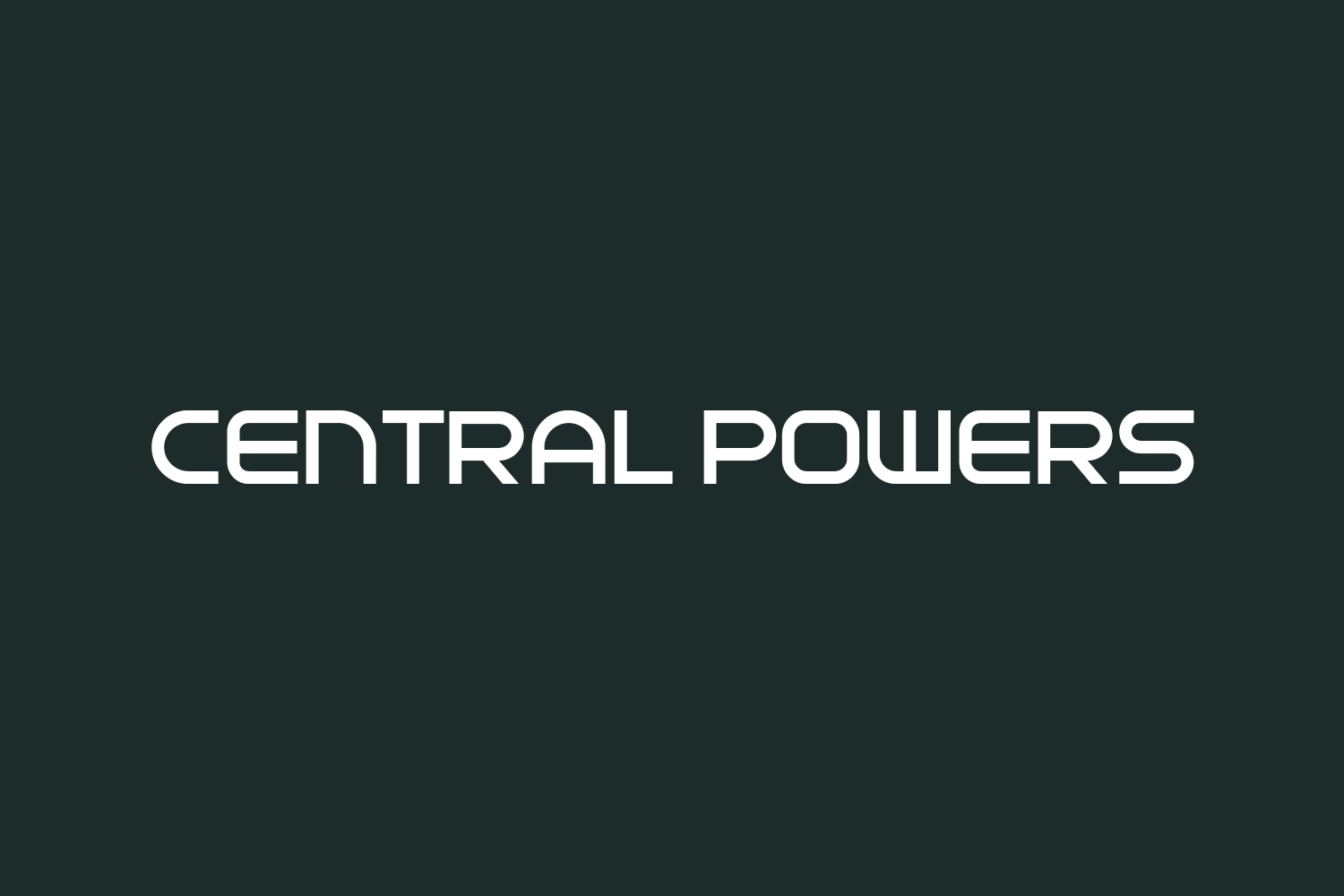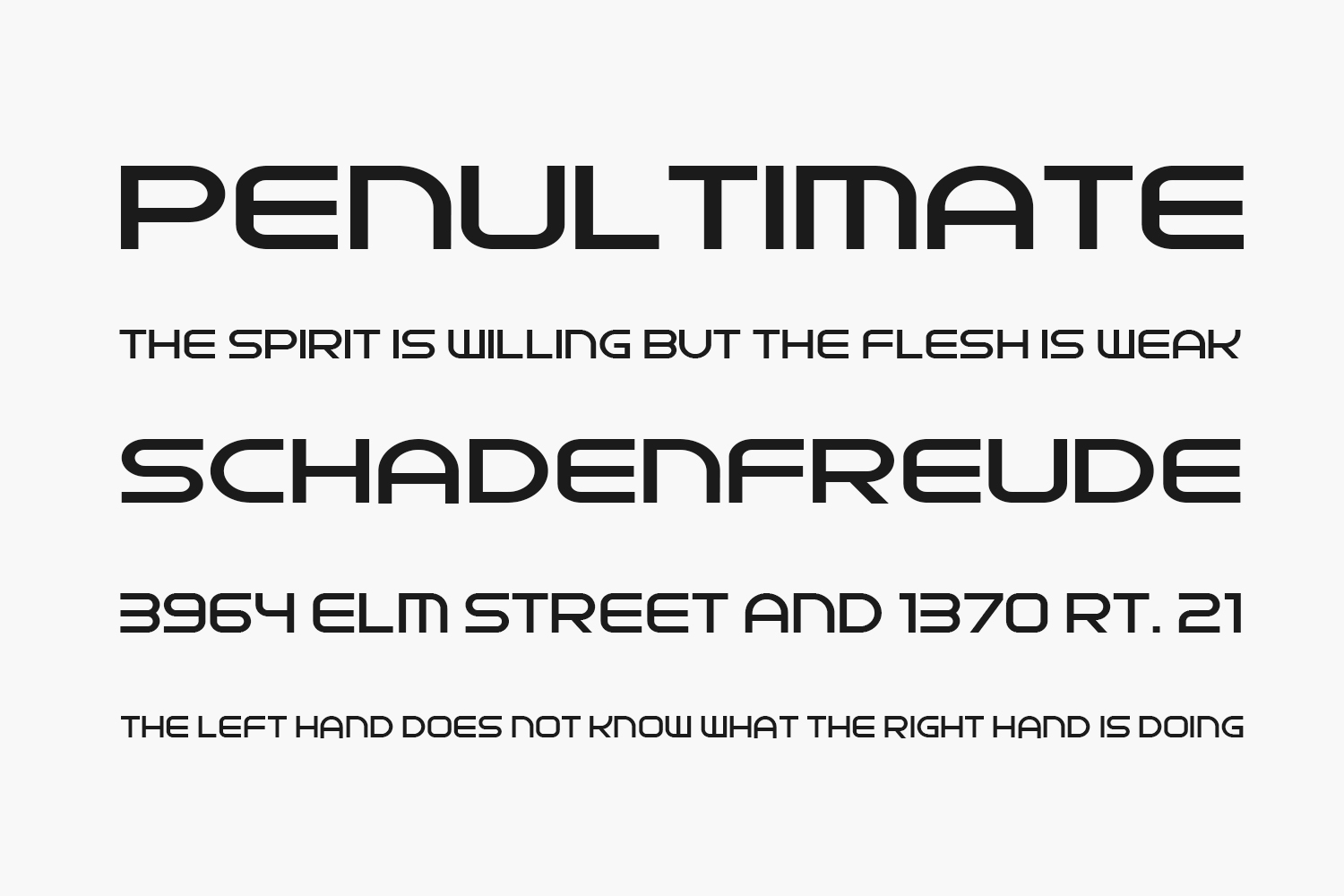
Introducing Central Powers Free Font, a contemporary and futuristic display font. Its unique background makes it an ideal choice for various design concepts, including posters, quotes, engaging social media posts, and any project in need of a Sci-Fi flair. Download the font for free if you need it for personal use or purchase the full version for commercial use.
Designed by Vladimir Nikolic